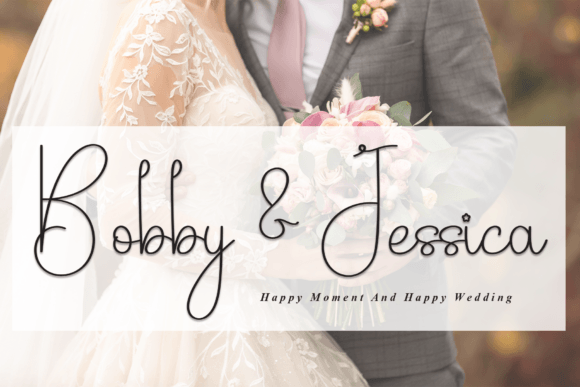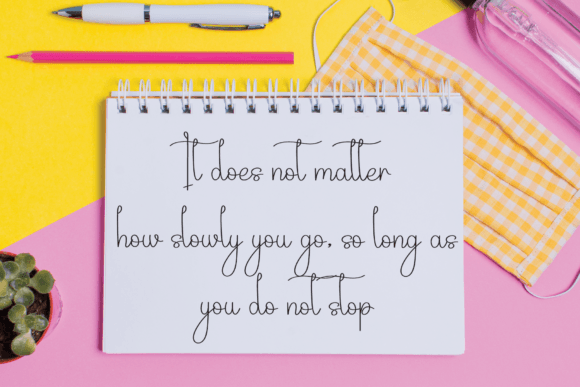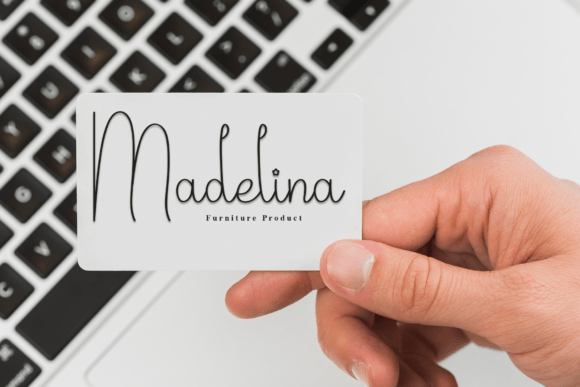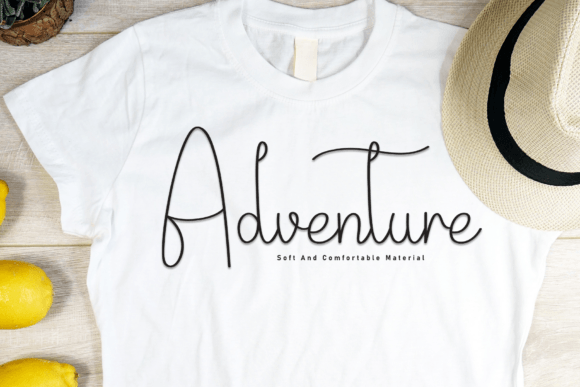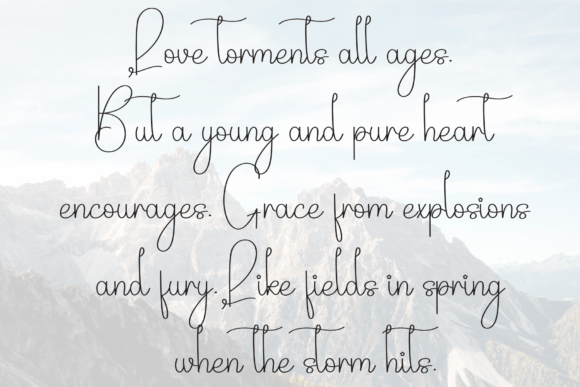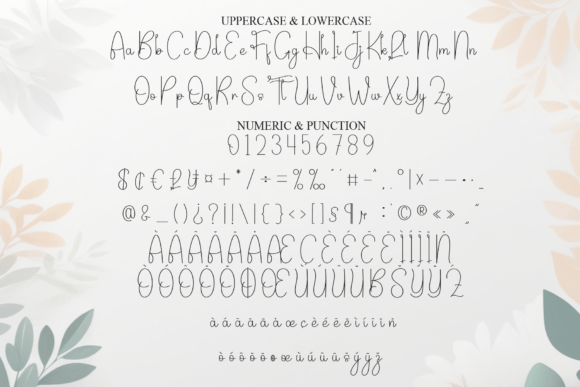
Greeting Signature Font: Add a Touch of Whimsy to Your Designs
Are you looking for a font that can add a dash of personality to your wedding invitations, greeting cards, or design projects? Look no further than the Greeting Signature Font, a charmingly delightful handwritten display font that is sure to bring a fun touch to your creative expressions.
What is Greeting Signature Font?
The Greeting Signature Font is a beautifully crafted handwritten font that exudes a friendly and vivacious temperament. Its elegant and flowing script is perfect for adding a touch of whimsy to any design project. Whether you’re a designer, crafter, or DIY enthusiast, this font is sure to become a favorite in your collection.
Key Features of Greeting Signature Font
- Handwritten Display Font: The Greeting Signature Font is a handwritten display font that is designed to make a statement. Its unique and playful script is sure to grab attention and add a touch of personality to your designs.
- Charmingly Playful Essence: This font has a charmingly playful essence that is sure to bring a fun touch to your creative expressions. Whether you’re designing wedding invitations, greeting cards, or social media graphics, this font is sure to add a dash of whimsy.
- Effervescent Flair: The Greeting Signature Font has an effervescent flair that is sure to make your designs stand out. Its elegant and flowing script is perfect for adding a touch of sophistication and elegance to your projects.
- Versatile: This font is versatile and can be used for a variety of design projects, including wedding invitations, greeting cards, social media graphics, and more.
Uses for Greeting Signature Font
The Greeting Signature Font is perfect for a variety of design projects, including:
- Wedding Invitations: Add a touch of whimsy and romance to your wedding invitations with the Greeting Signature Font.
- Greeting Cards: Create personalized and unique greeting cards for special occasions, such as birthdays, holidays, and anniversaries.
- Social Media Graphics: Add a touch of personality to your social media graphics with the Greeting Signature Font.
- Design Projects: Use this font to add a touch of whimsy and playfulness to your design projects, such as brochures, flyers, and posters.
Why Choose Greeting Signature Font?
There are many reasons why you should choose the Greeting Signature Font for your design projects. Here are a few:
- Unique and Playful Script: This font has a unique and playful script that is sure to grab attention and add a touch of personality to your designs.
- Elegant and Flowing: The Greeting Signature Font has an elegant and flowing script that is perfect for adding a touch of sophistication and elegance to your projects.
- Easy to Read: This font is easy to read, making it perfect for use in a variety of design projects.
- High-Quality: The Greeting Signature Font is a high-quality font that is designed to deliver exceptional results.
Tips for Using Greeting Signature Font
Here are a few tips for using the Greeting Signature Font in your design projects:
- Use it Sparingly: Use the Greeting Signature Font sparingly to add a touch of whimsy and playfulness to your designs.
- Pair it with Other Fonts: Pair the Greeting Signature Font with other fonts to create a unique and visually appealing design.
- Have Fun: Most importantly, have fun and be creative with the Greeting Signature Font!
The Greeting Signature Font is a charmingly delightful handwritten display font that is sure to bring a fun touch to your creative expressions. With its unique and playful script, elegant and flowing design, and versatile uses, this font is perfect for designers, crafters, and DIY enthusiasts. Whether you’re designing wedding invitations, greeting cards, or social media graphics, the Greeting Signature Font is sure to add a touch of whimsy and personality to your designs.